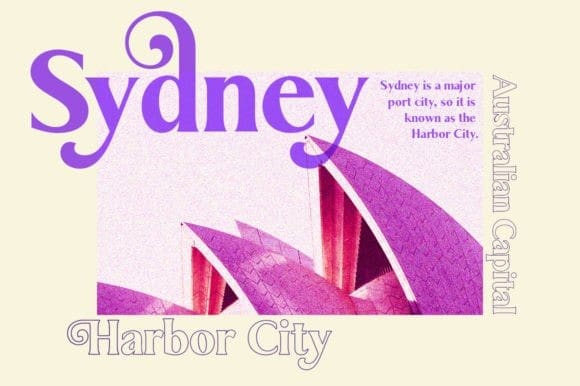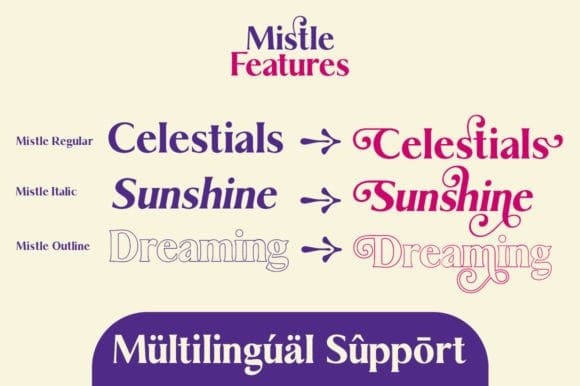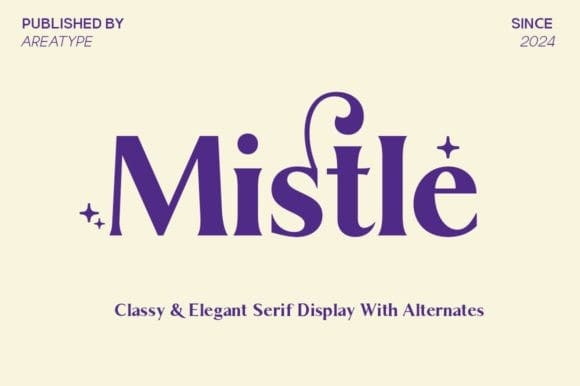
Mistle Font
Mistle Font is a serif display font that has a classic, feminine and elegant style. Included 3 Fonts, upright and slant. OpenType features allow for the implementation of typographic such as ligatures and multiple language support. Good choice for branding, magazines, posters, advertising, print, packaging, headlines, web design etc.